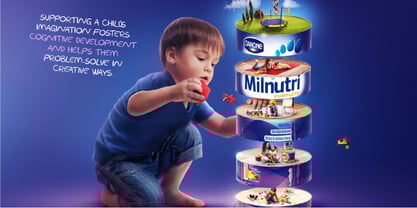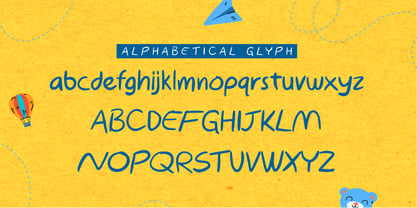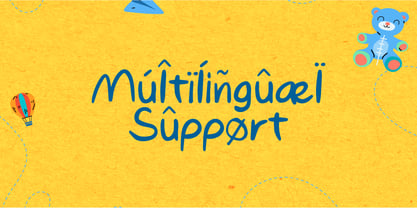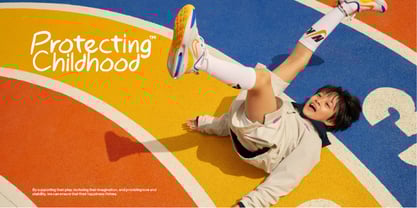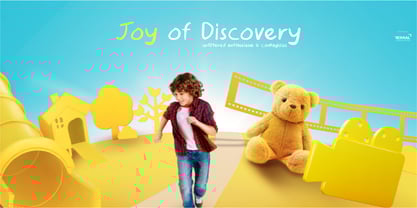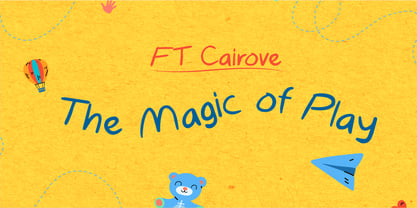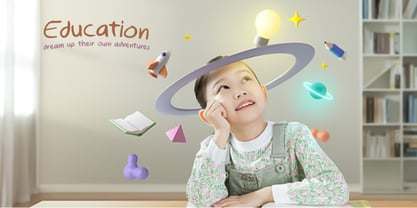
FT Cairove
by Firstype Studio
The FT Cairove Font Family was designed by Adrian Syauqi and published by Firstype Studio. FT Cairove contains 1 styles.
FT Cairove, a delightful and playful handwriting font designed specifically for children's projects. With its smooth, flowing strokes and friendly, hand-drawn style, FT Cairove captures the essence of fun and creativity. This font is perfect for designs aimed at young audiences, offering a cheerful and approachable look that can bring warmth and personality to any project. Whether you’re designing for educational materials, children’s books, or playful branding, FT Cairove will add a touch of whimsy and joy.
Inspired by the carefree spirit of childhood doodles and the charm of handwritten notes, FT Cairove combines simplicity with a friendly aesthetic. Its organic shapes and playful forms make it feel approachable and lively, bringing a personal touch that resonates with children and parents alike. The font is designed to be easy to read while maintaining the lively energy of a child’s handwriting, making it ideal for engaging young readers and creating a sense of fun.
Inspiration Behind the Design
FT Cairove draws its inspiration from the natural, spontaneous movements of a child’s hand when drawing or writing. The font was designed to capture the joy and creativity that children express through their scribbles and playful writing styles. Its smooth curves and free-flowing lines were created to evoke the feeling of a handwritten note full of personality and warmth.
The goal was to develop a font that feels lighthearted and fun, while still maintaining a level of clarity and legibility that makes it perfect for use in educational or playful contexts.
Designers: Adrian Syauqi
Publisher: Firstype Studio
Foundry: Firstype Studio
Design Owner: Firstype Studio